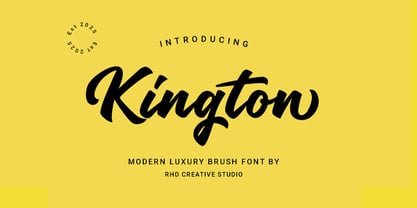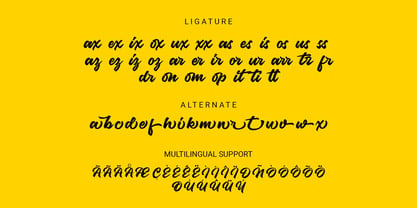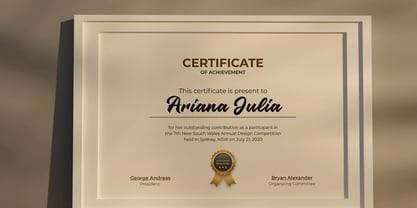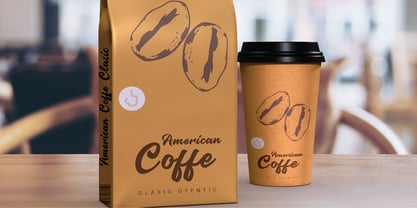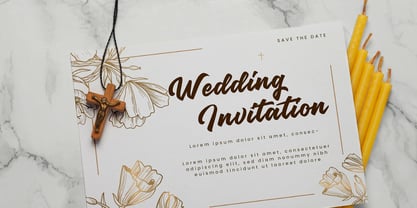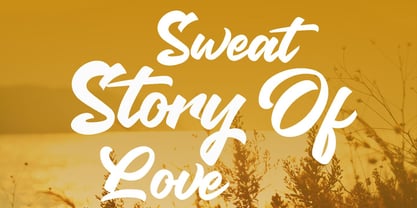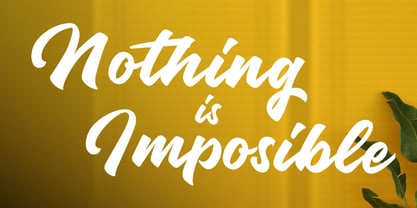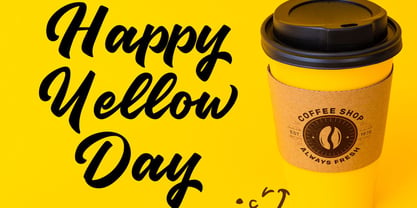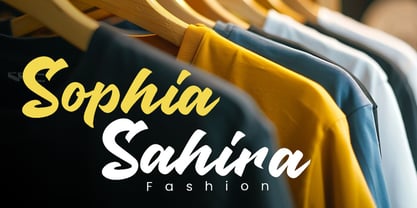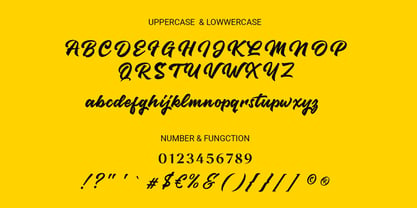
Kington
by RHD Creative
The Kington Font Family was designed by and published by RHD Creative. Kington contains 1 styles. More about this family
Hello everyone, I would like to introduce Kington Modern Luxury Brush Font.
Kington Modern Luxury Brush Font with Handmade character. Kington Modern Luxury Brush Font , Modern font to make your design project stand out! Kington is a perfectly choice for any creative endeavor, creating, modern, chic, lifestyle design such as logotype, title, cover, branding, invitations, wedding designs, display and magazine, social media posts, advertisements, printed quotes, product packaging, corporate brand, product designs, labels, photography, watermarks, special events and any other project with modern touch.